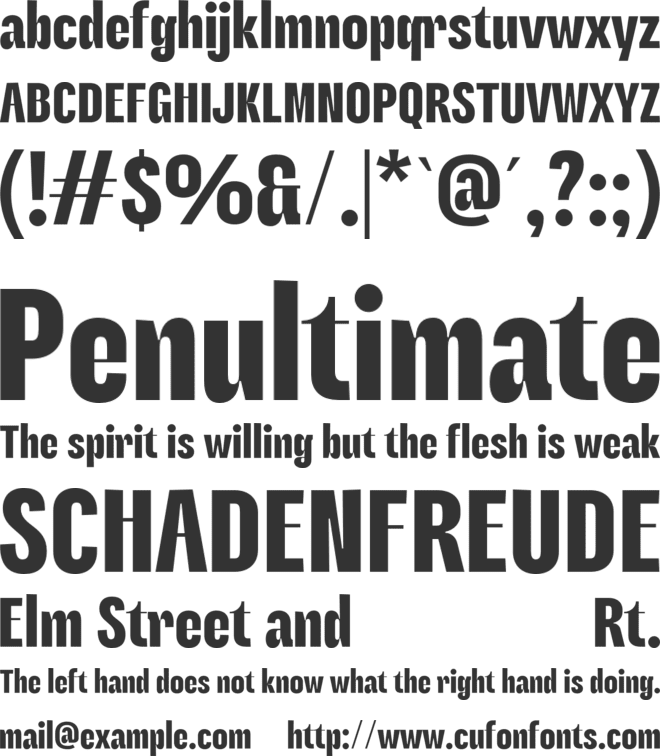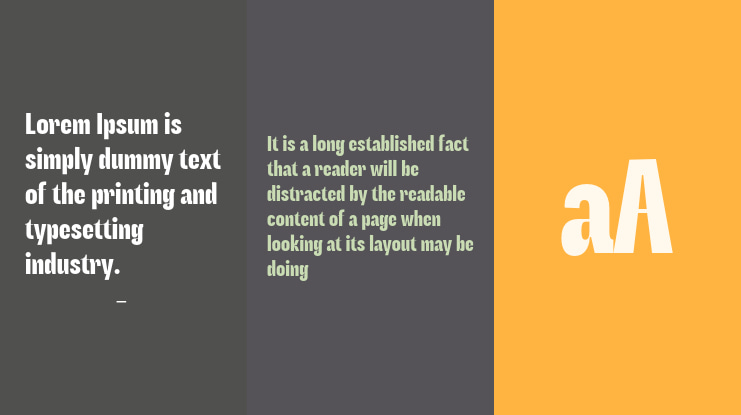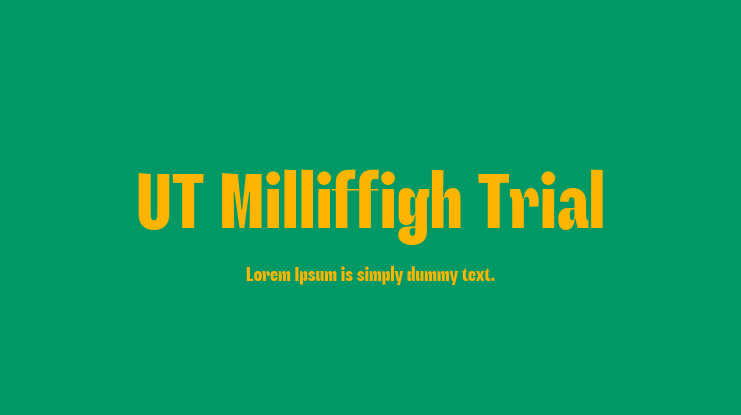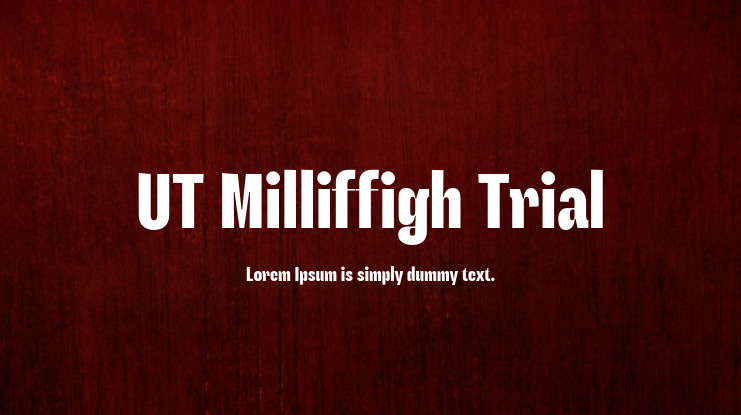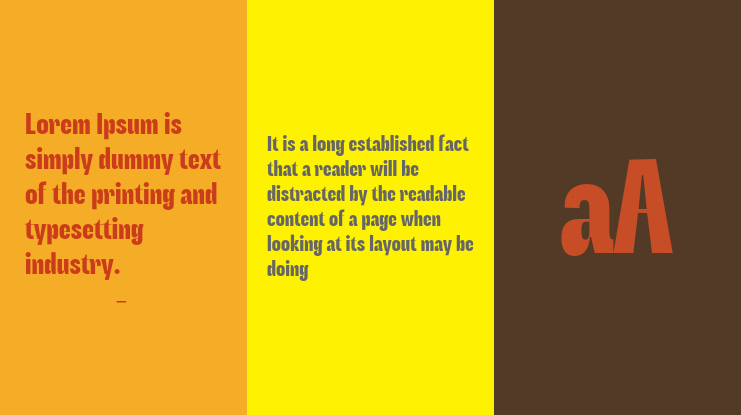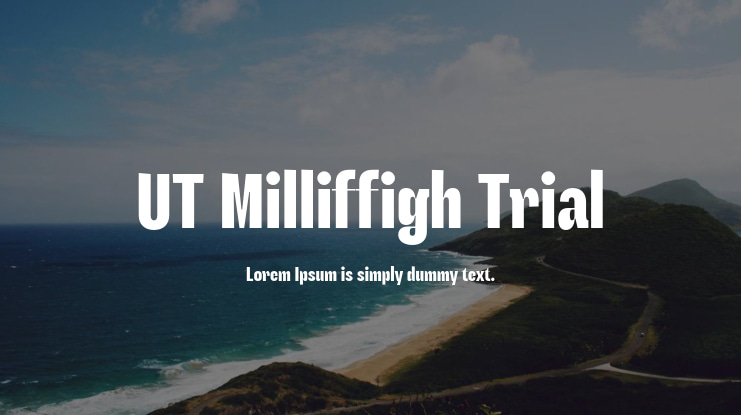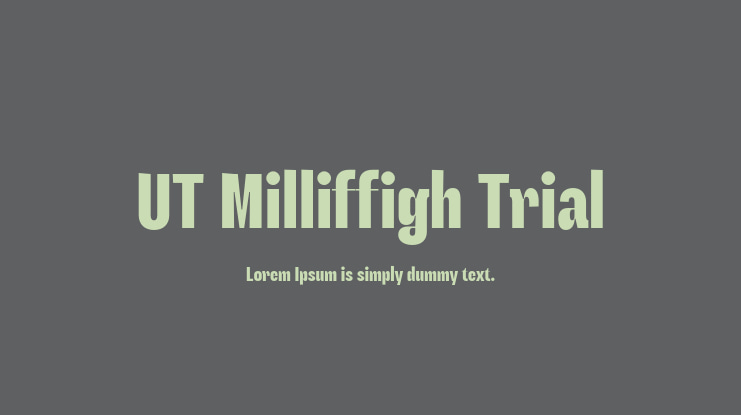
UT Milliffigh Trial Font
UT Millifigh is an answer to the modern designer’s crave for clarity and confidence. With razor-sharp contrast and a tightly condensed silhouette, this font refuses to blend in. Ideal for headlines, branding, and digital interfaces, UT Millifigh serves drama without dropping readability, perfect for projects that demand to be seen and understood.